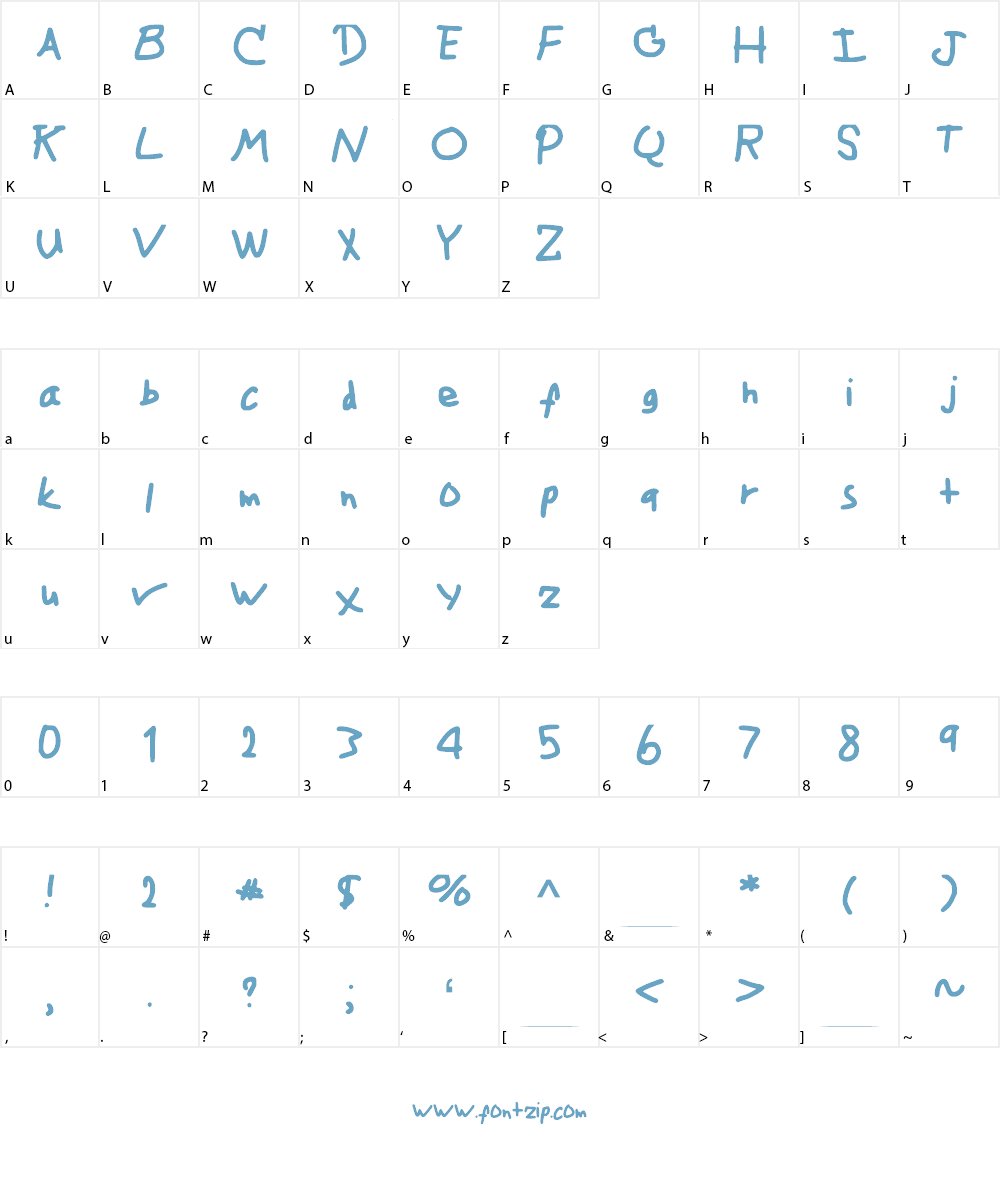
Hello everyone, this is "Paint" the font. A font designed to express the incredible and stylishness that is the program "Paint". Now you can have a font equally as incredible. Sure, there may not be many practical uses, but that's OK.